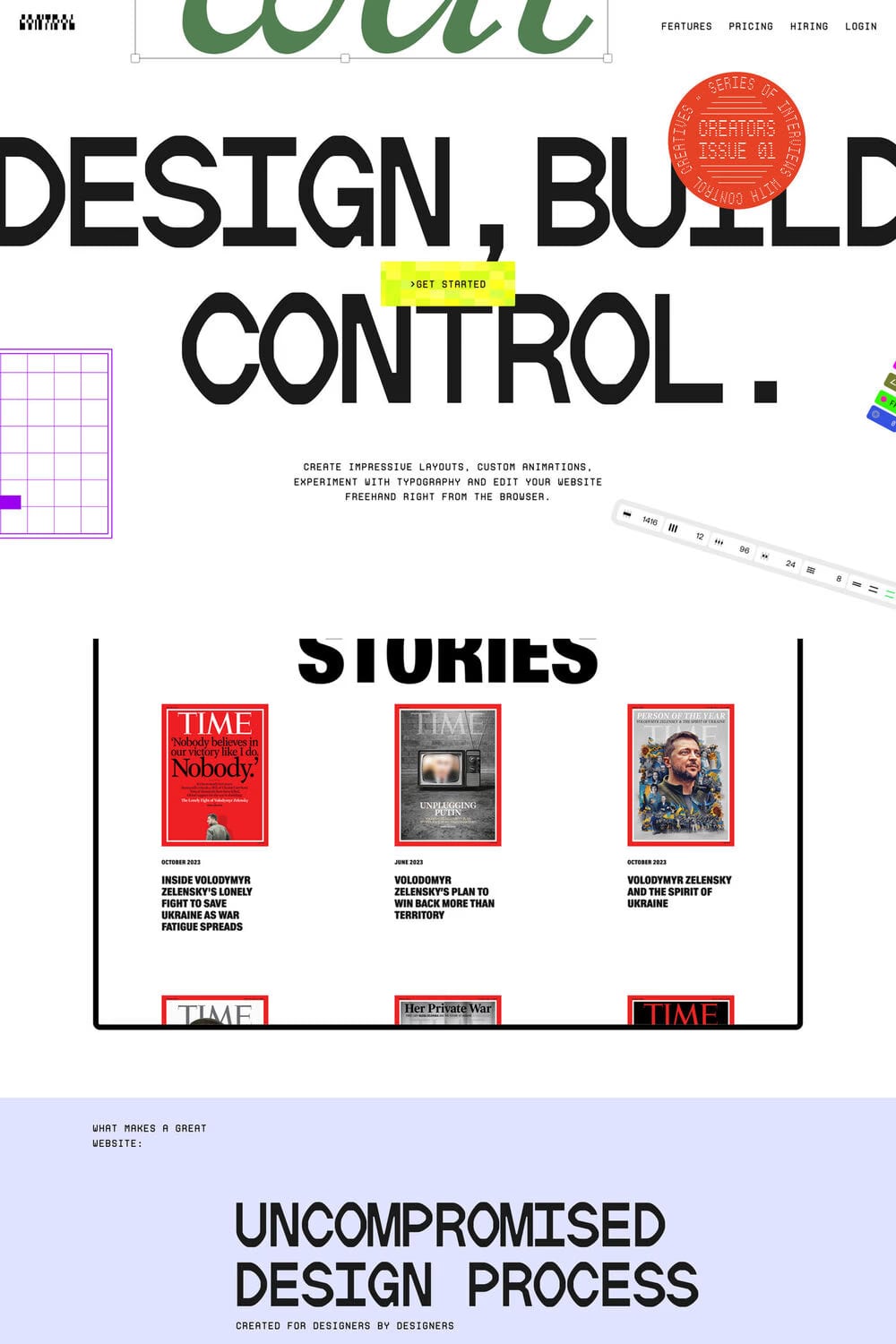
Neural is a display typeface from ECAL Typefaces.
Neureal is a reverse-contrast, sans-serif typeface developed through experimentation with extrapolation. The initial drawings, based on visual distortions, were fed into the computer, which then generated new ideas for letter shapes with mathematical calculations. The typeface consists of these revised and redrawn shapes as a result of a back and forth with the software. The proportional cut is optimised for display sizes, but Neureal is also accompanied by a Mono version designed for small sizes. Taking advantage of spatial constraints, the monospaced cut further aggravates the broken curves of the original design.